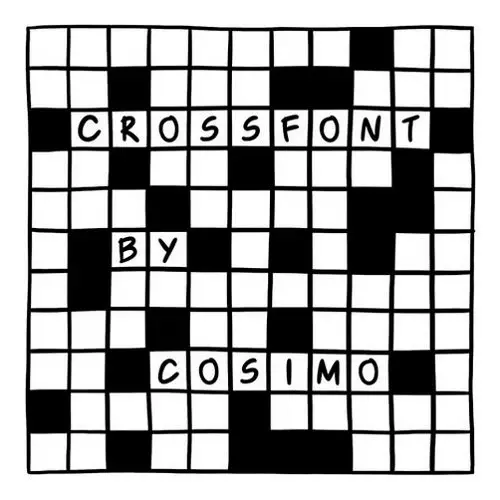
Crossfont Font
The Crossfont Font is a versatile typeface designed to meet a variety of design needs. With its clean lines and modern aesthetic, this font is perfect for branding, logos, web design, and print materials.
• Weights: Light, Regular, Medium, Bold
• Ideal for creating eye-catching logos and branding materials.
• Use in headings and body text for a cohesive look.
• Perfect for both digital and print applications.